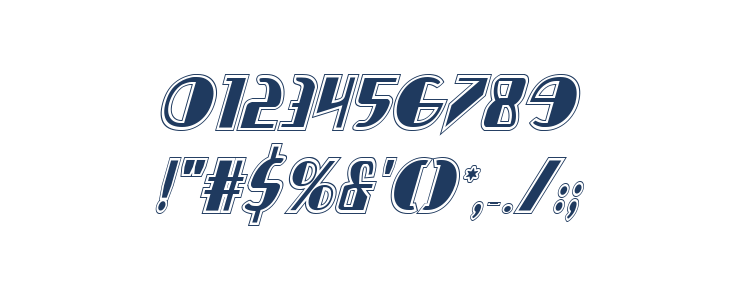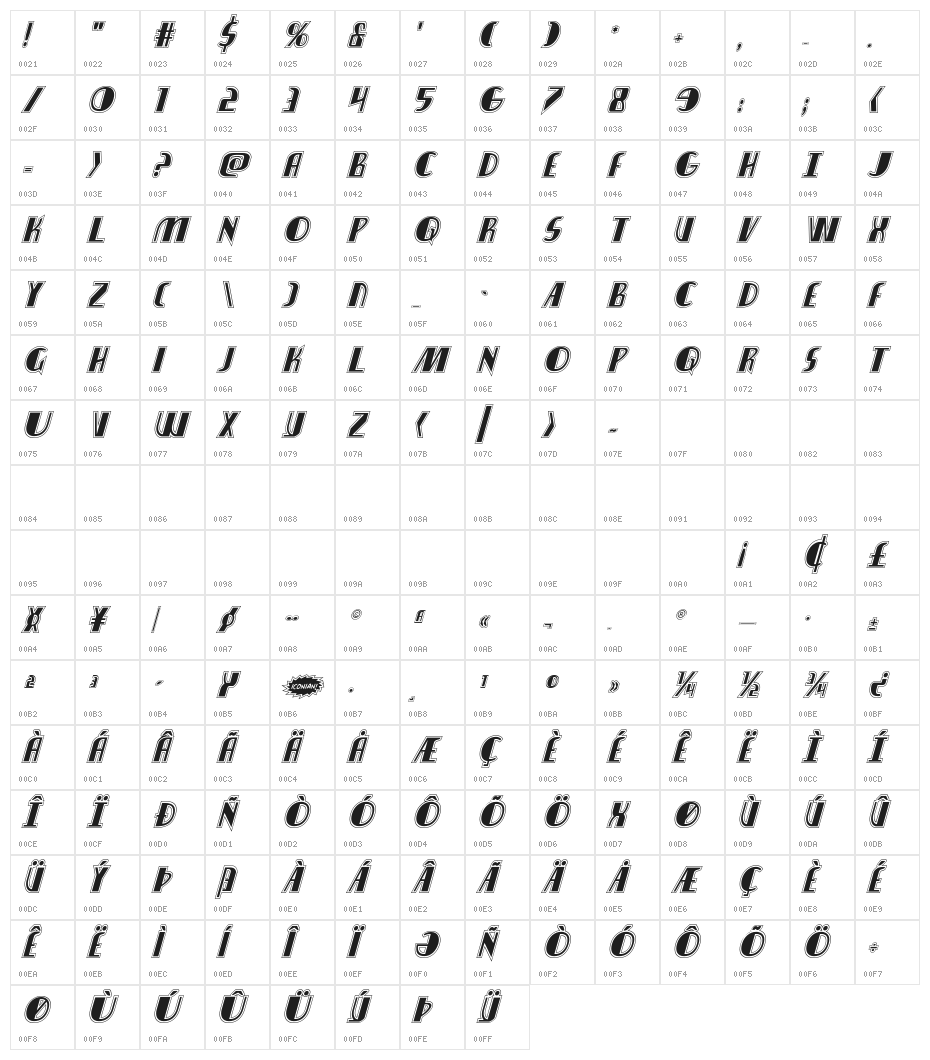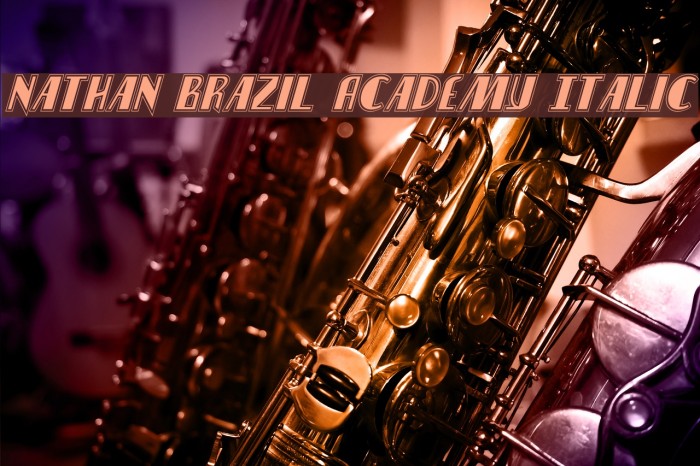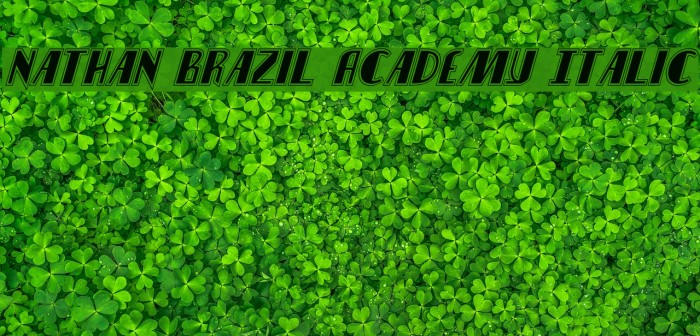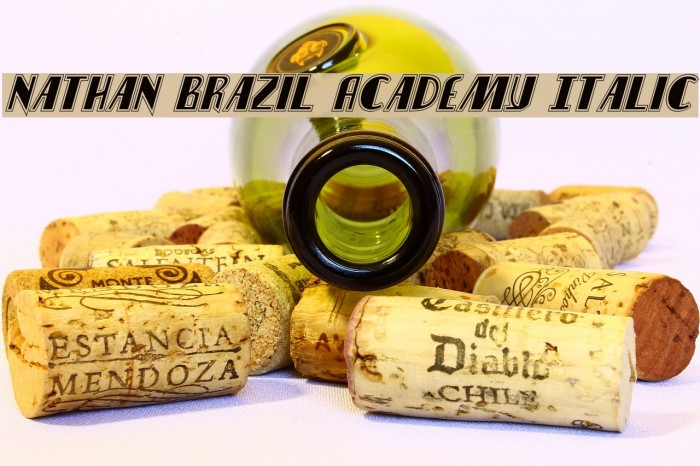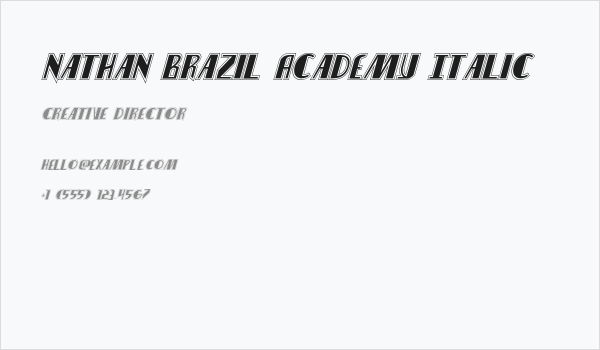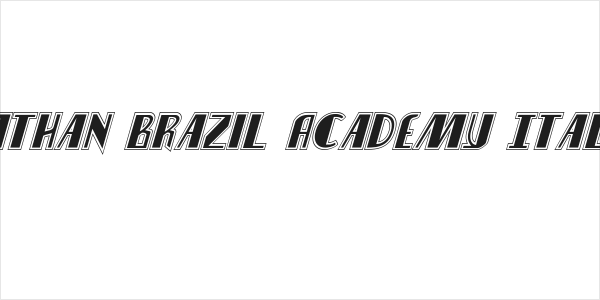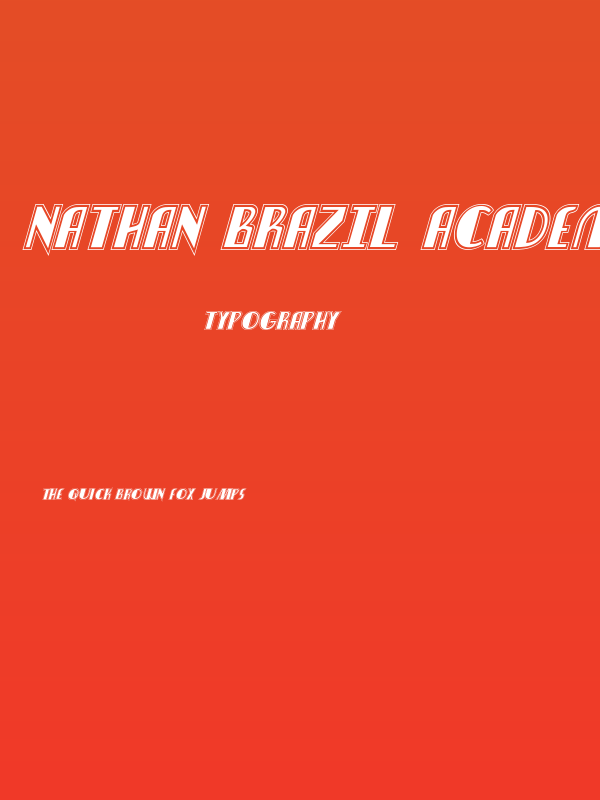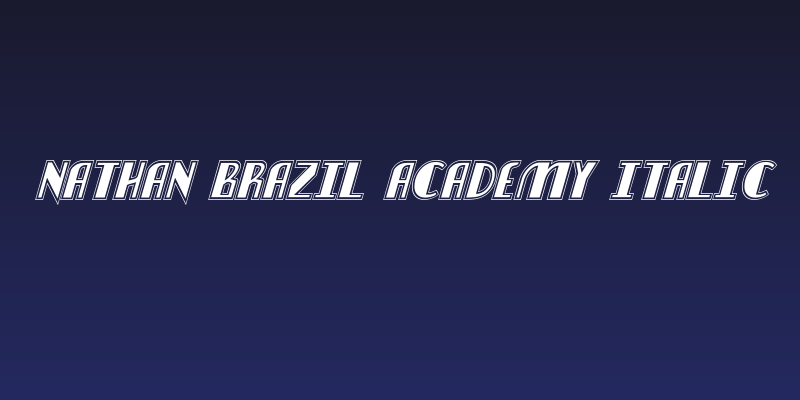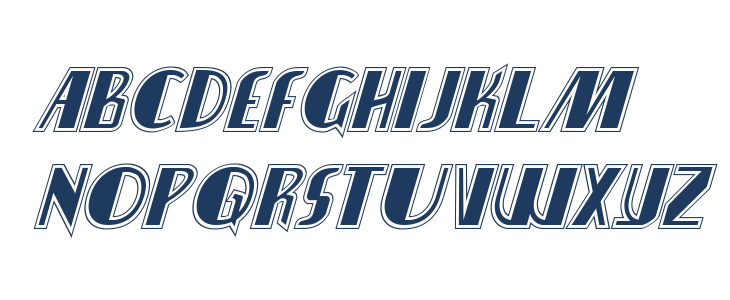
Nathan Brazil Academy Italic Font
Nathan Brazil Academy Italic Description
This font features a bold, italicized style with a distinct three-dimensional effect. The characters are outlined with a shadow that gives them a dynamic and impactful appearance. The uppercase and lowercase letters maintain a consistent style, with sharp angles and clean lines that enhance readability while adding a sense of movement. The numbers and special characters are designed to match the boldness and style of the letters, making them suitable for attention-grabbing designs. The font's unique style makes it ideal for projects that require a strong visual impact.
| Proposed Projects | Ideal for posters, logos, headlines, and any design needing a bold statement. |